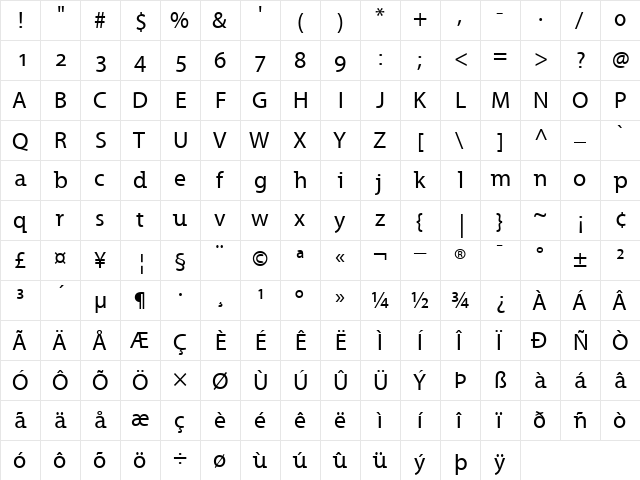
Grandesign Roman Regular
Design Context for Grandesign Roman Typeface
Grandesign Roman is a composed and adaptable typeface that performs quietly and consistently across a wide range of design contexts.
Pro Tip: Use Grandesign Roman in both headline and body roles to test its range before committing to a single application.